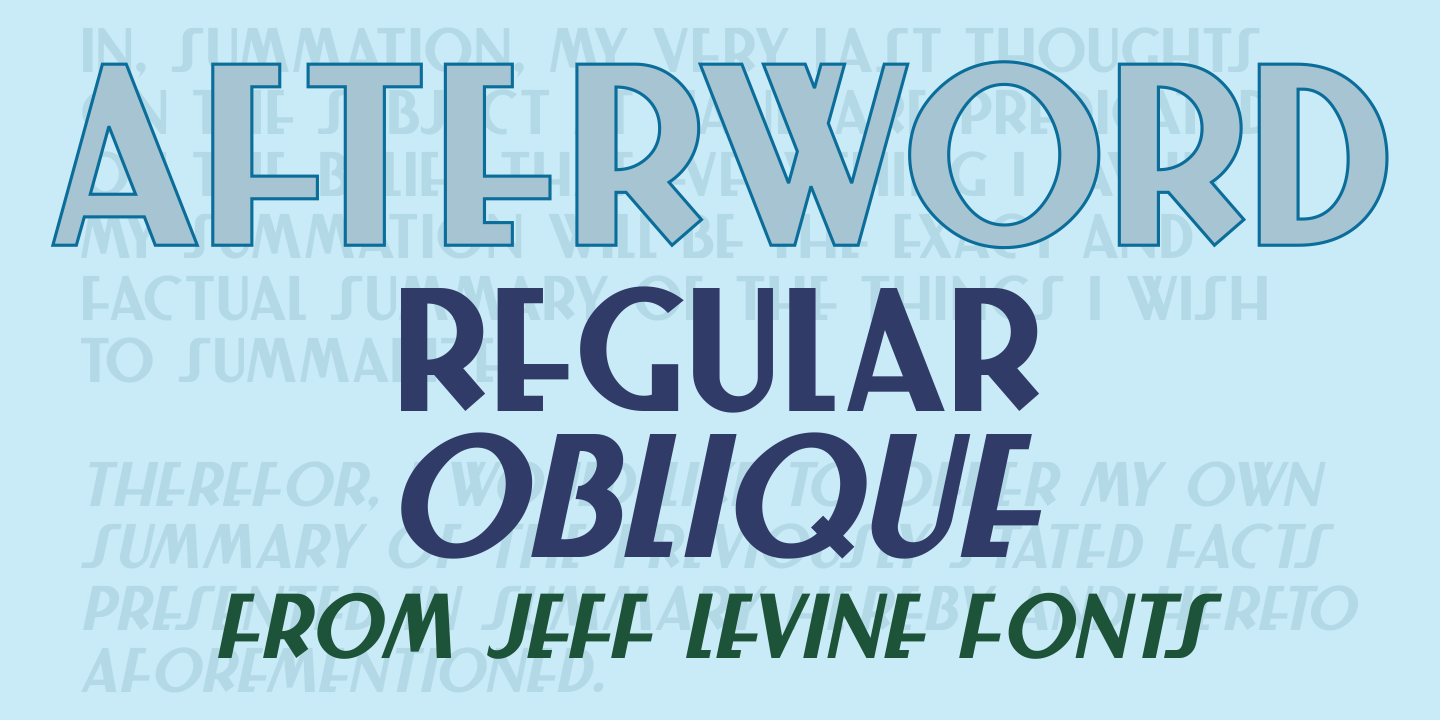
The Afterword JNL Font is excellent for nostalgic design projects including vintage book publishing, retro magazine layouts, classic poster reproductions, antique shop branding, historical society materials, old-fashioned newspaper designs, period-appropriate signage, and authentic vintage advertising recreations. This characterful typeface brings genuine mid-century charm and authentic historical typography to any design project celebrating bygone eras and vintage aesthetic appeal.
What makes Afterword JNL Font so exciting is its authentic capture of mid-20th century typographic traditions with letterforms that genuinely reflect the printing techniques and design sensibilities of vintage publishing eras. The letters feature period-appropriate characteristics with authentic vintage proportions that create an immediate sense of historical accuracy and nostalgic charm. This distinctive retro character makes it perfect for projects that want to communicate authenticity, historical value, and the enduring appeal of classic American typography.
The Afterword JNL Font family typically includes regular and bold variations, often with distressed effects that simulate aged printing techniques. Many versions feature vintage symbols, period-appropriate punctuation, and historical design elements that enhance its authenticity for retro and vintage applications.
Whether you're designing for vintage brands, historical publications, or nostalgic marketing campaigns, Afterword JNL Font Free Download provides the perfect solution for projects that need to convey authentic vintage character and historical typography. This font transforms modern text into genuine retro designs that immediately communicate historical authenticity, nostalgic appeal, and the timeless charm of mid-century American design to audiences appreciating vintage aesthetics and classic typography.